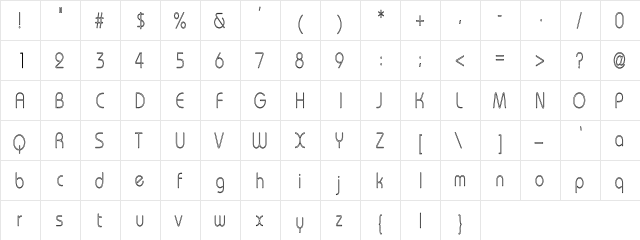
Bauhaus-Light-LHC Regular
Design Context for Bauhaus-Light-LHC Typeface
Bauhaus-Light-LHC takes a measured approach to typography — its balanced proportions and neutral character make it a reliable workhorse for both digital and print work. Its slender proportions lend an understated elegance to any composition.